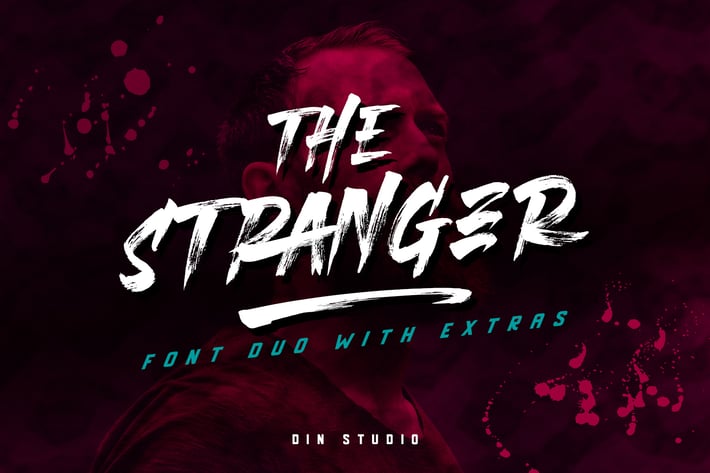
Stranger Font Duo + Extras
Introducing The Stranger Font.
The Stranger is a brush font and combines with sans font. Made with naturally brush. The texture from the brush font will make your design more beautiful and powerful. This font is suitable for any design like branding, quotes, t-shirt printing and etc.
- The Stranger Brush
- The Stranger Sans
- The Stranger Swashes
- The Stranger Splatters
- Accents (Multilingual Characters)
- 12 Alternates
- 14 Ligatures
- 52 Extra Swashes
- 26 Splatters
- Numerals and Punctuations (OpenType Standard)